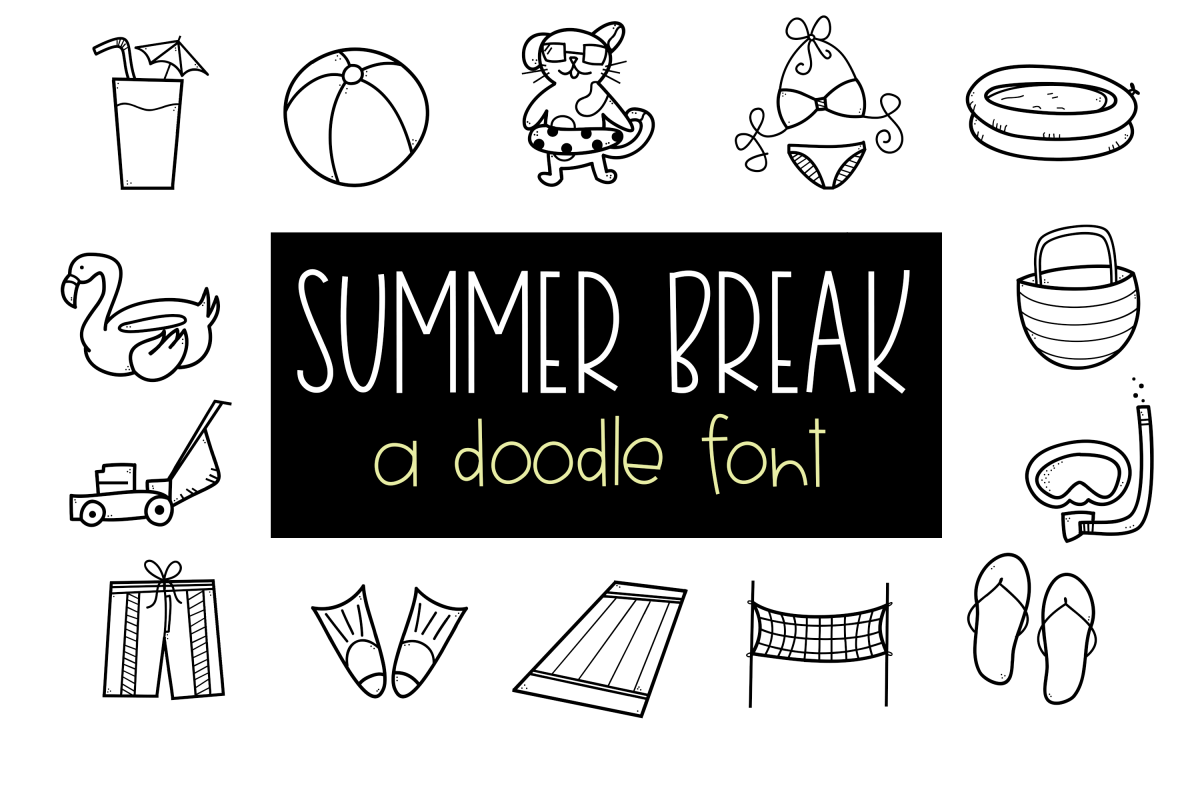
Summer Break / Summer Doodle Font
Summer Break is a doodle (dingbat) font.
It includes 52 hand-drawn, summer/beach doodles.
Instead of a letter showing up, a small doodle will!
You can resize the doodle, color the doodle and add text to the doodles!